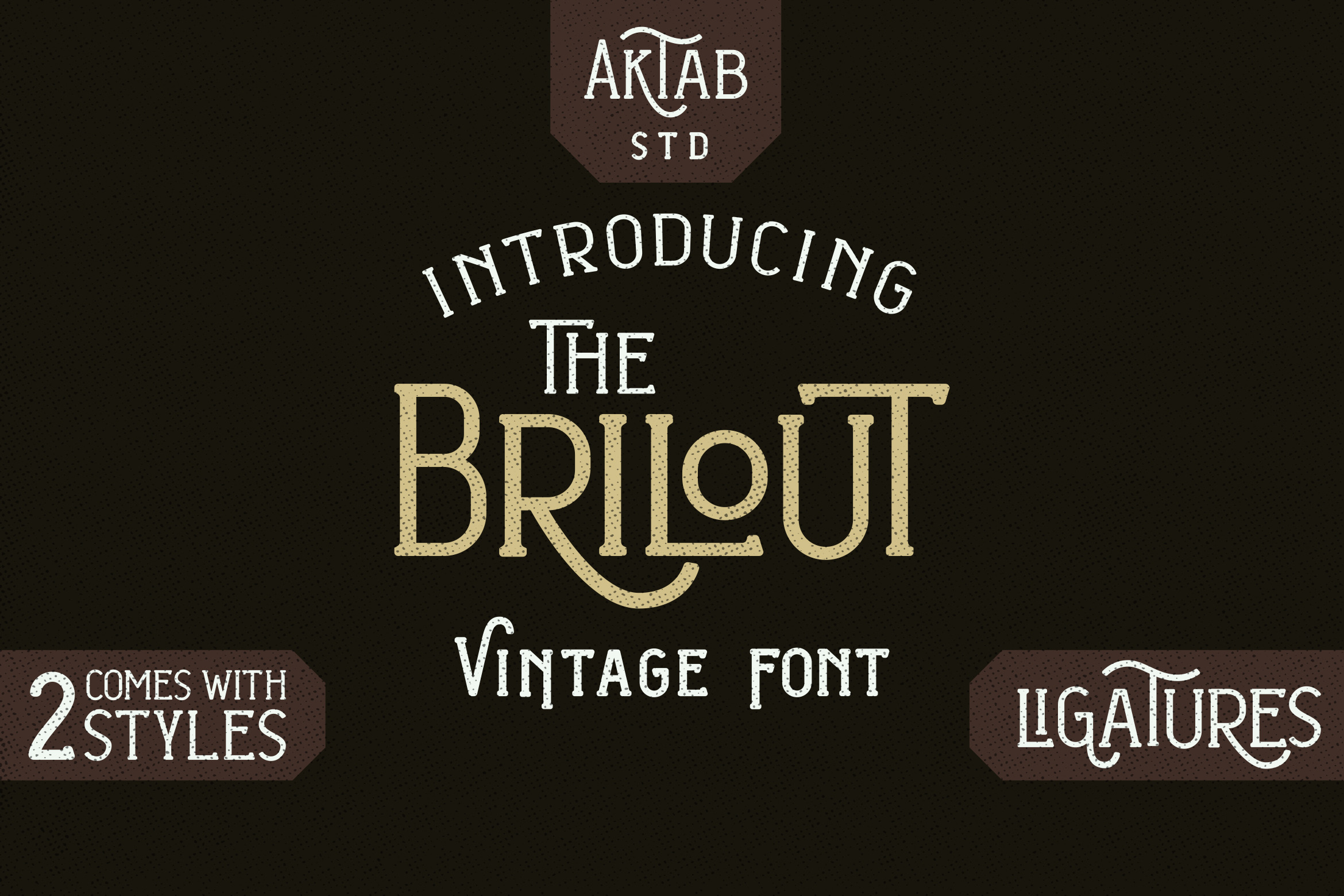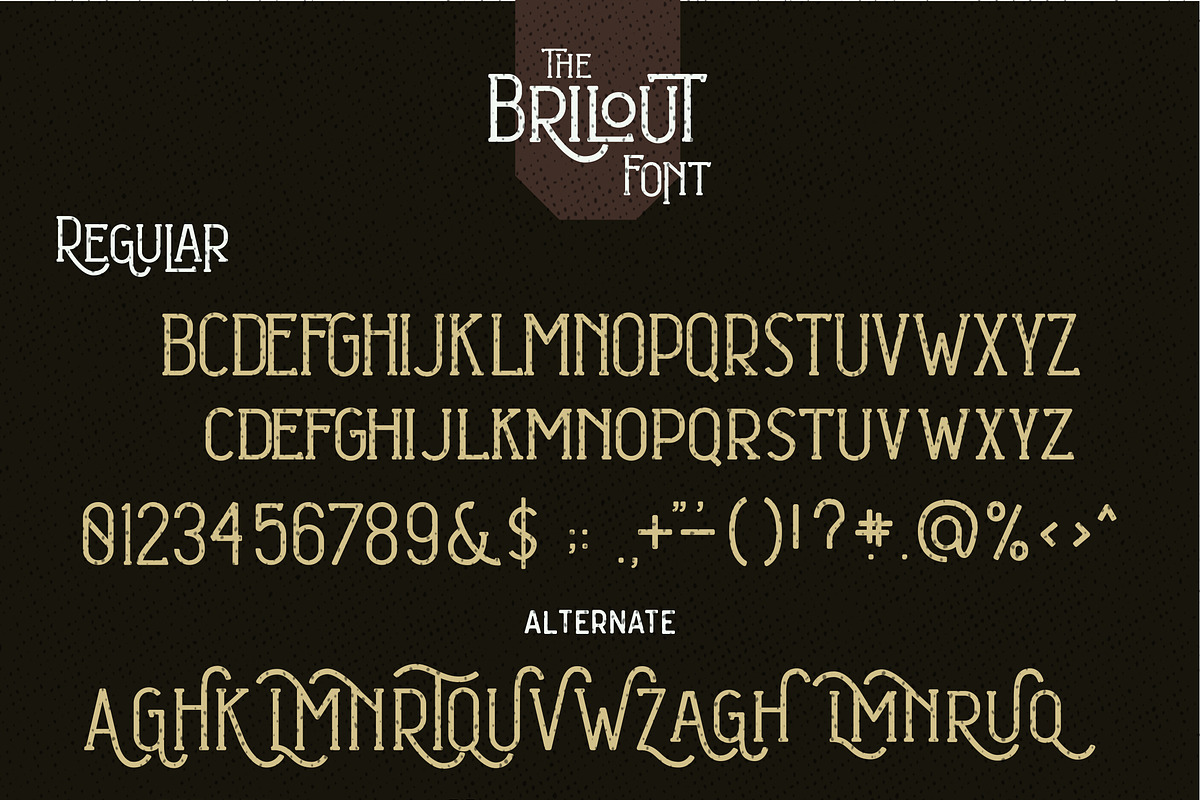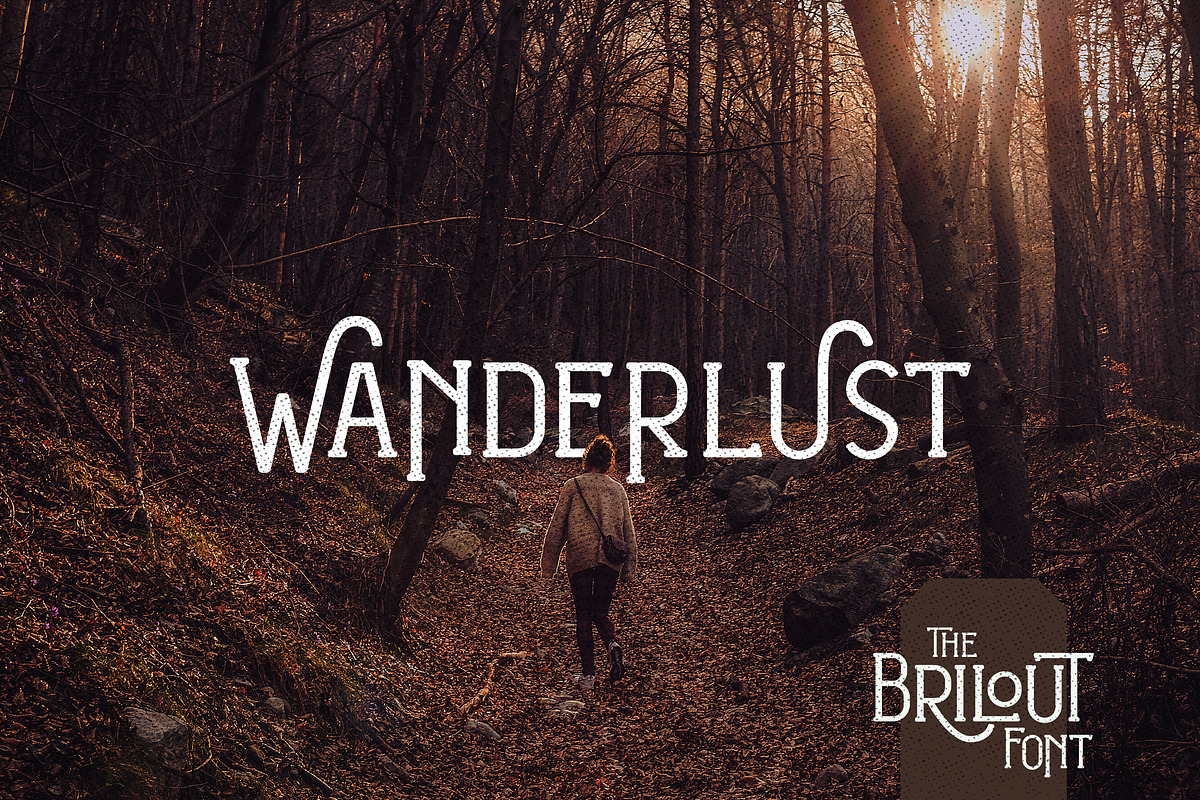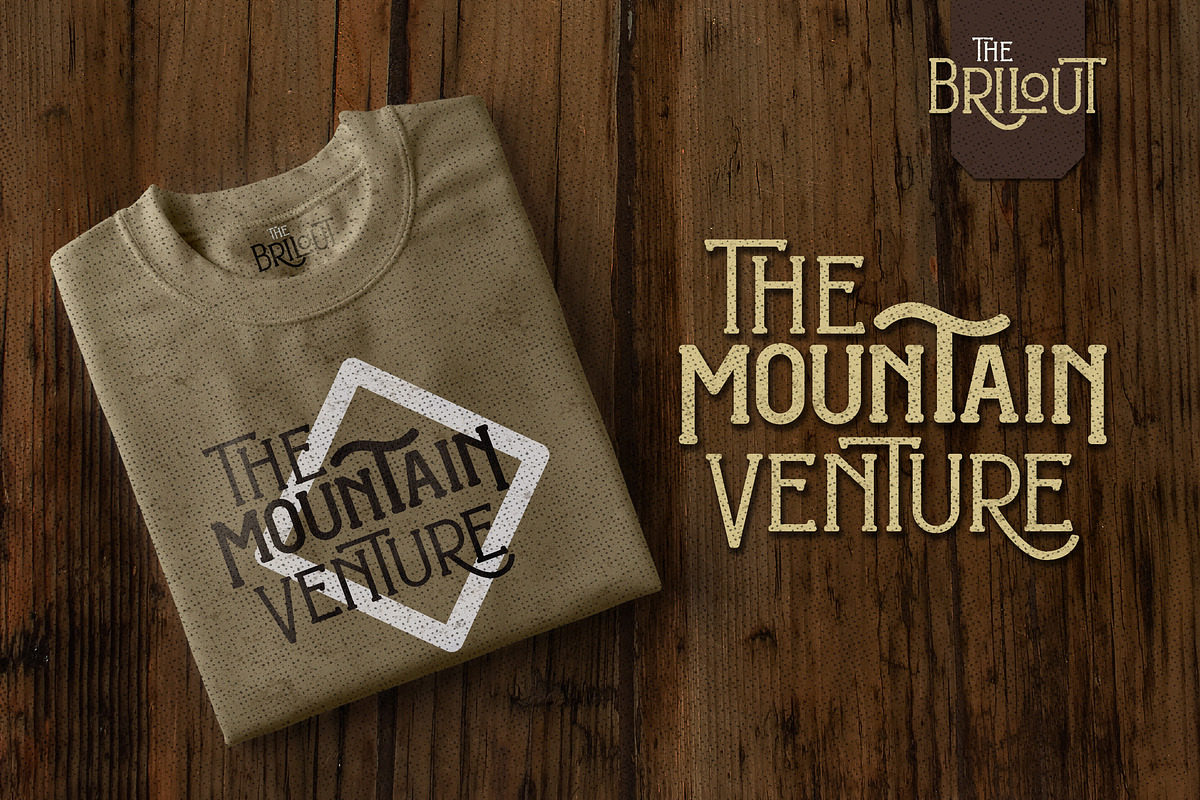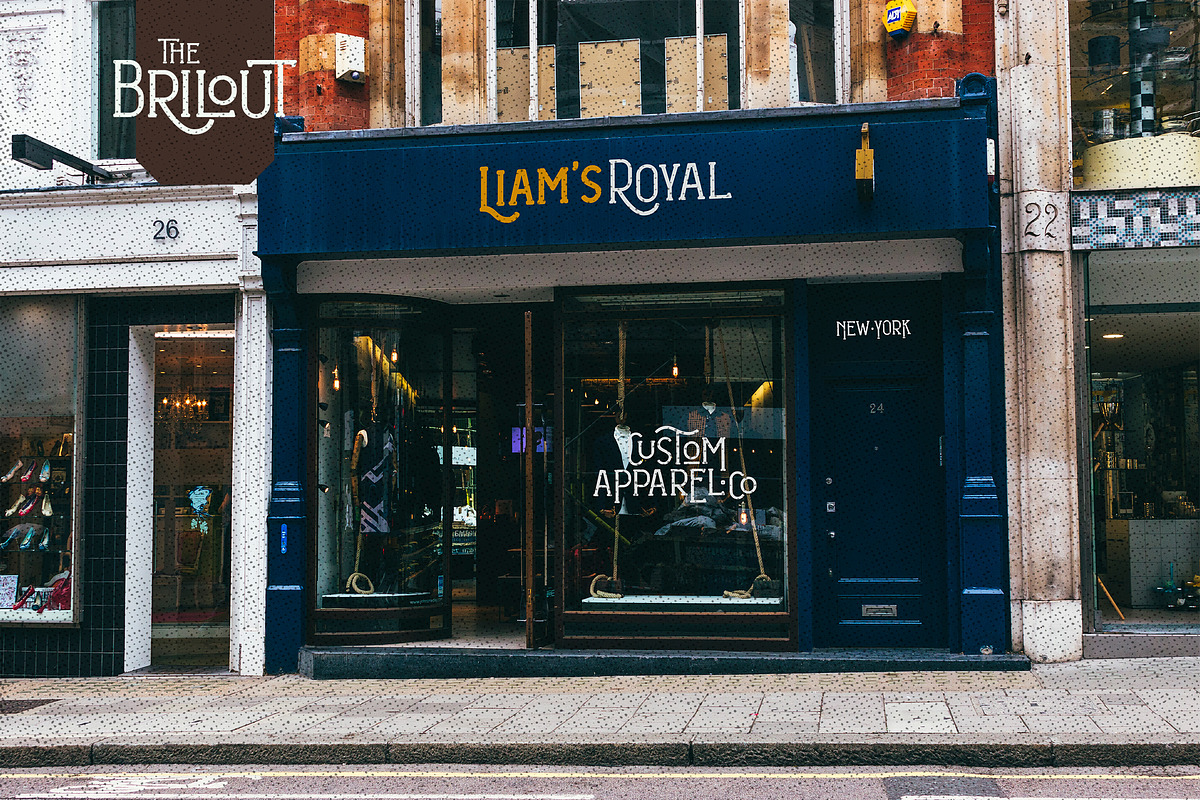
Brilout Display Font
Brilout is a playful and elegant sans serif, perfect for branding projects, headlines, posters and packaging! Primarily it is characterized by a modern look with straight shapes, but on closer view, you will notice its subtle connection to vintage type design from old years.
Brilout come with range of ligatures, alternate characters, as well as two different weights allow unique and versatile design options! Furthermore it is a unicase typeface, so you can also play with uppercase and lowercase initials. But that's not all!
Featured :
- 2 Weights (Bold – Thin)
- Character set A-Z with some special lowercase options
- Special Ligatures